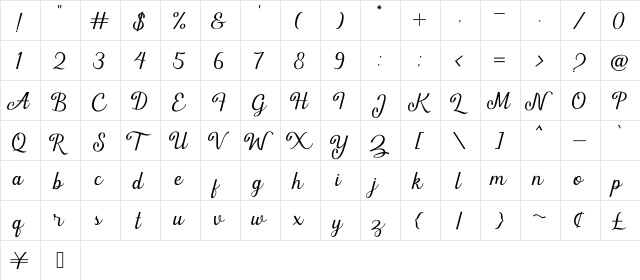
Thuckies Regular
Design Context for Thuckies Typeface
Thuckies is a composed and adaptable typeface that performs quietly and consistently across a wide range of design contexts.